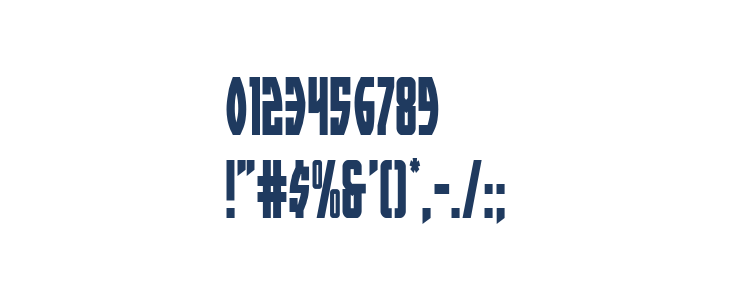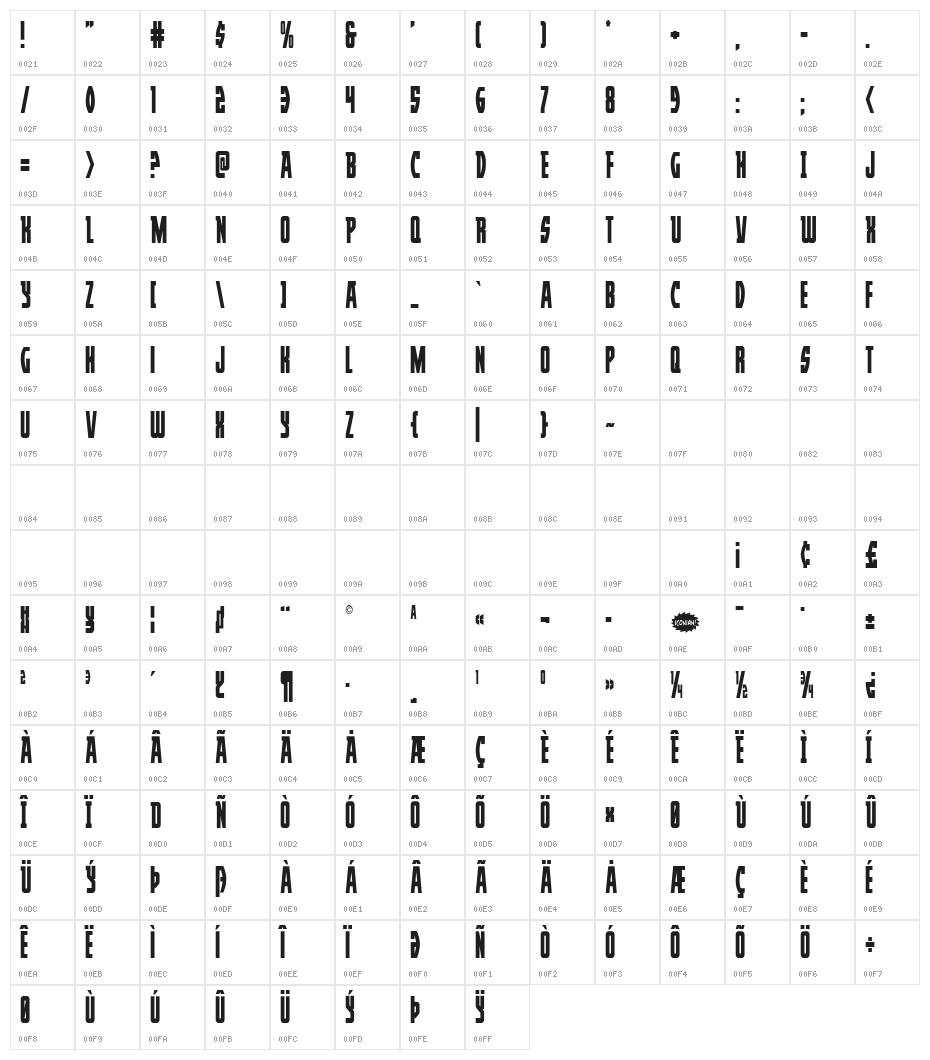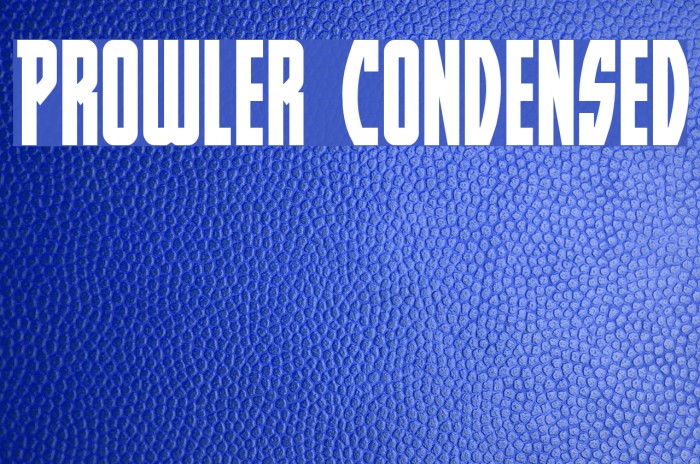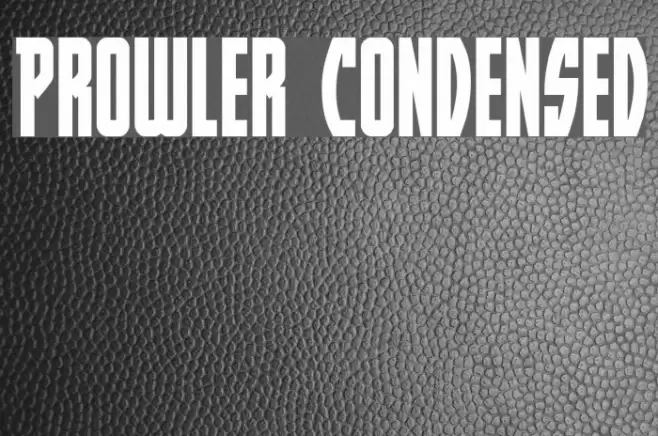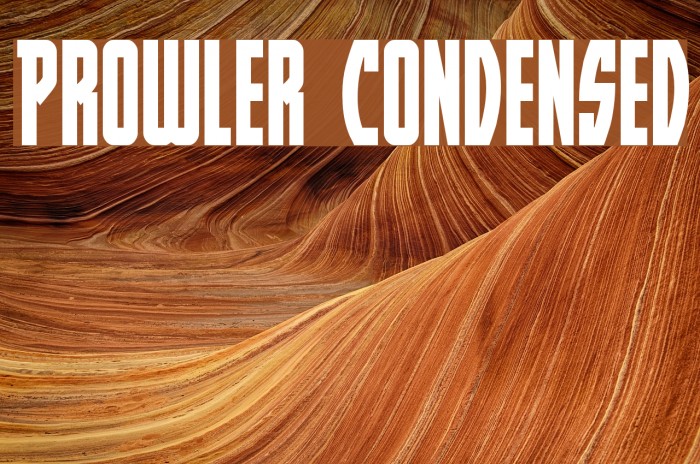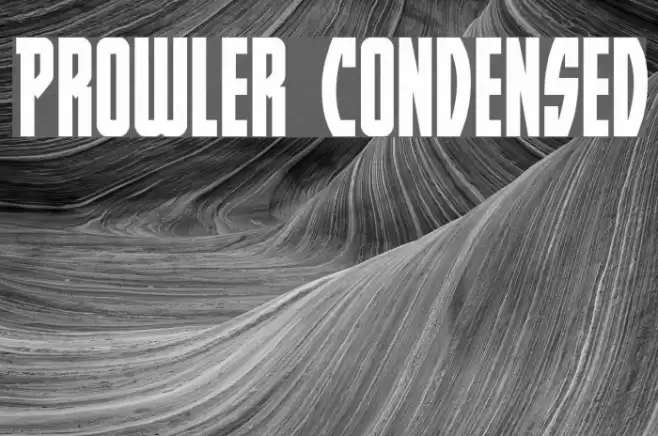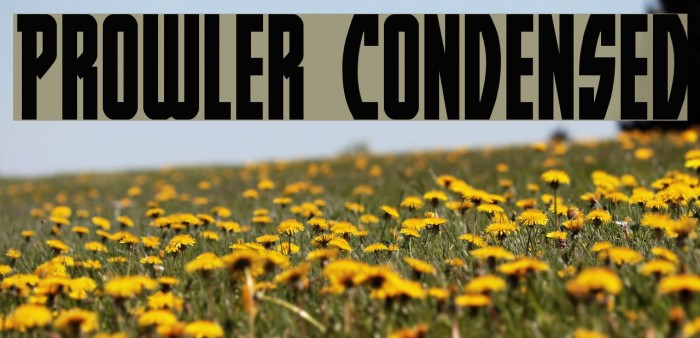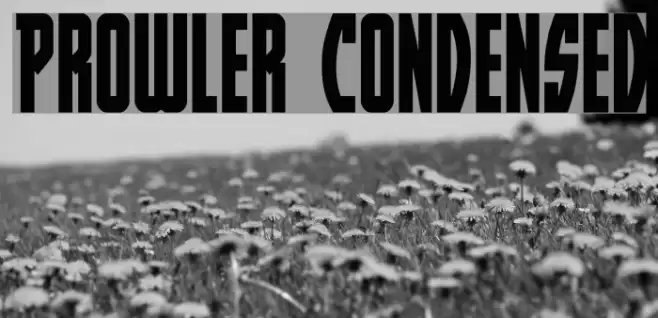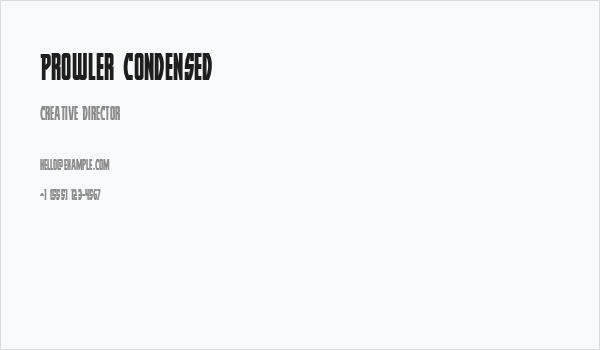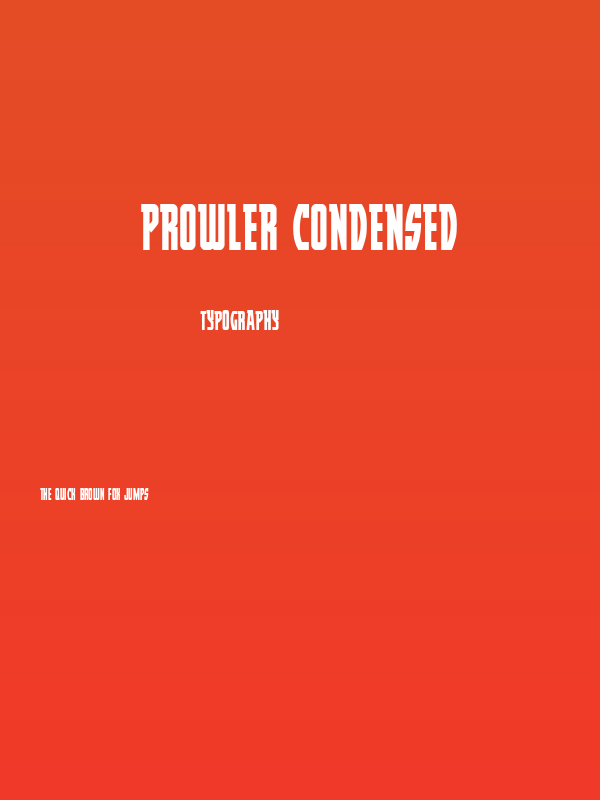
Prowler Condensed Font
Prowler Condensed Description
This font features a bold and condensed design, characterized by its tall, narrow letterforms with sharp angles and strong vertical emphasis. The uppercase and lowercase letters maintain a consistent height, contributing to a uniform appearance. The numerals and special characters are designed to match the boldness and condensed nature of the alphabet, ensuring a cohesive look across all characters. The font's geometric shapes and clean lines give it a modern and assertive feel, making it suitable for impactful and attention-grabbing designs.
| Proposed Projects | Ideal for posters, headlines, branding, and any design requiring a strong visual impact. |